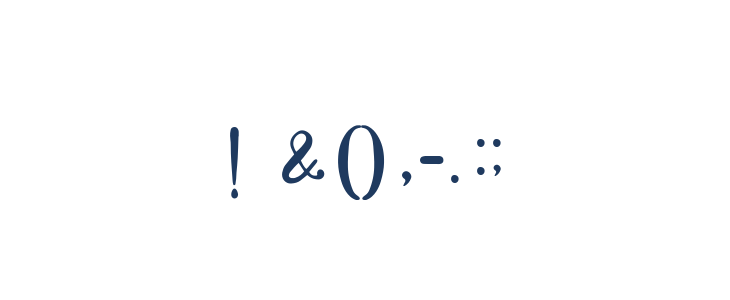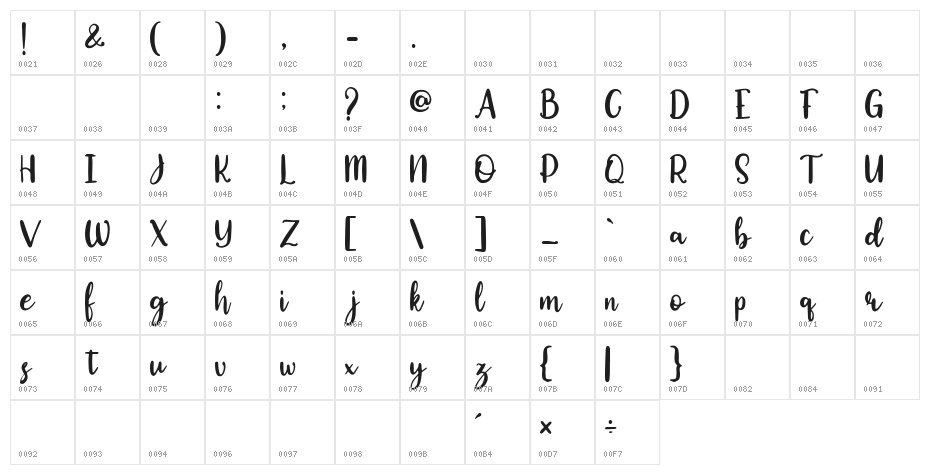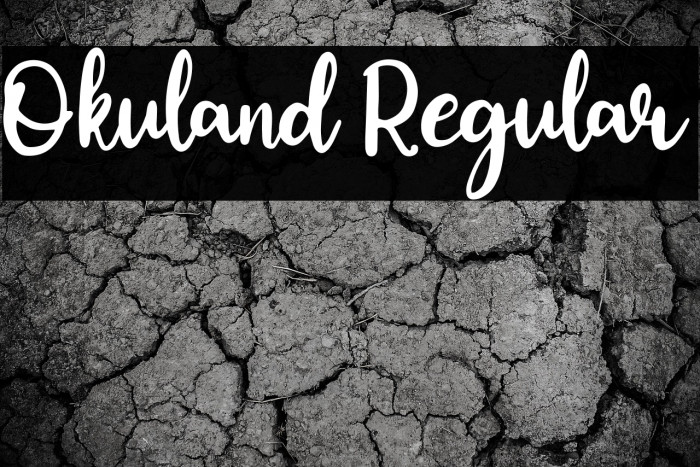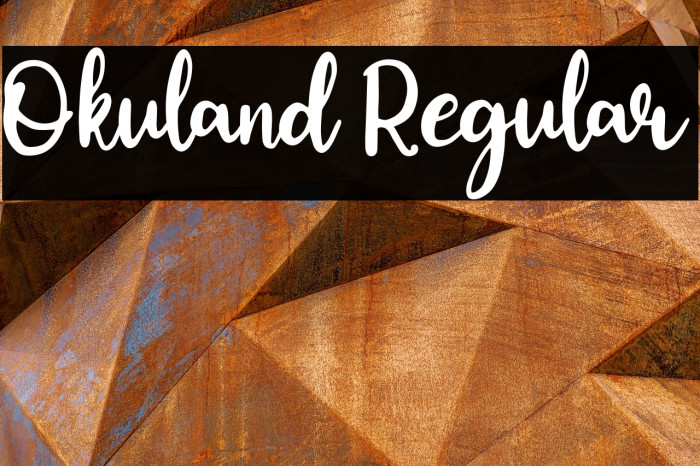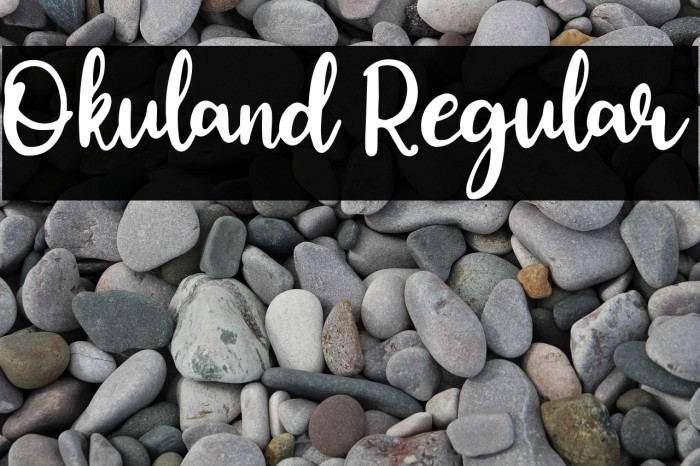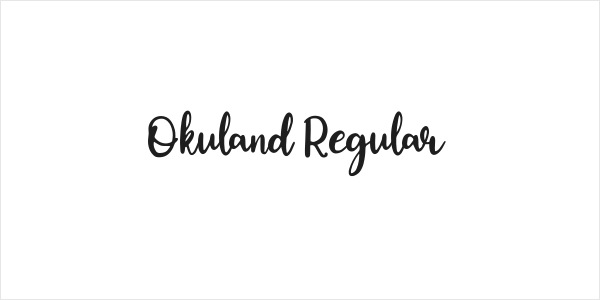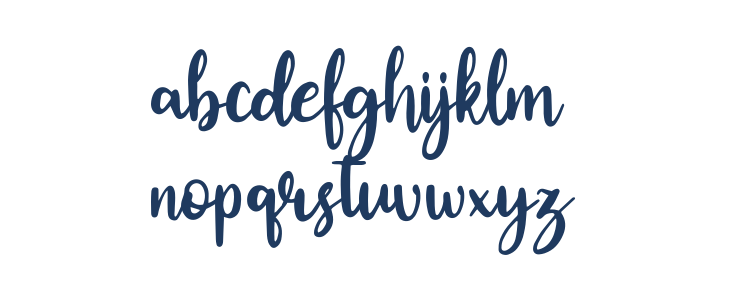
Okuland Regular Font
Okuland Regular Description
This font features a playful and energetic script style with a handwritten appearance. The letters are bold and rounded, giving a friendly and approachable feel. The uppercase letters have a whimsical flair, while the lowercase letters maintain a consistent flow with smooth curves and loops. The font includes a variety of special characters, enhancing its versatility. The overall design is both modern and casual, making it suitable for a range of creative projects.
| Proposed Projects | Ideal for greeting cards, invitations, branding, and social media graphics. |